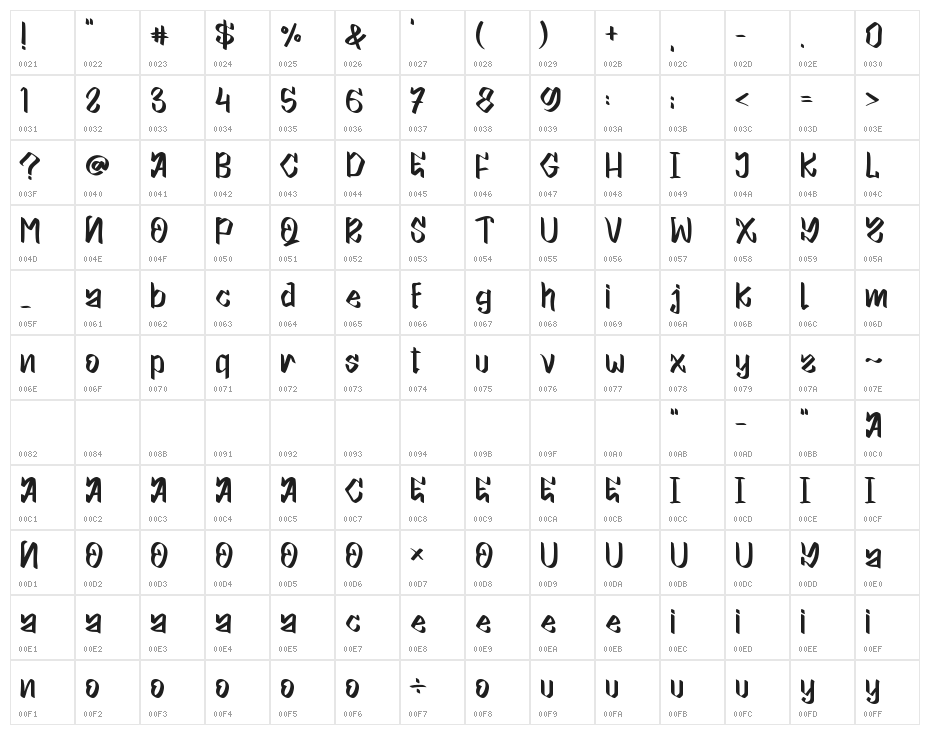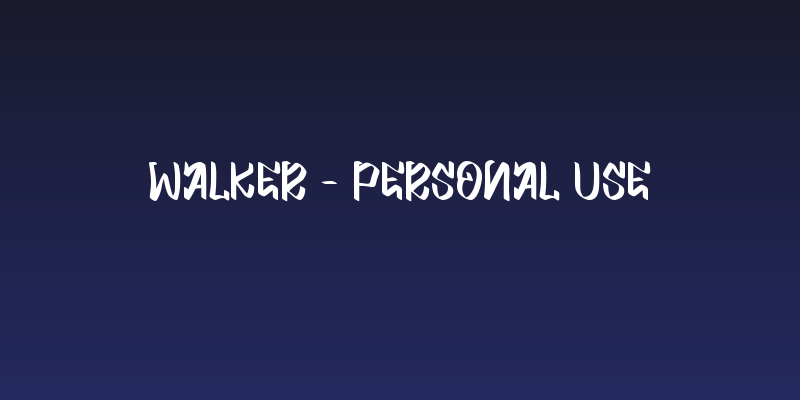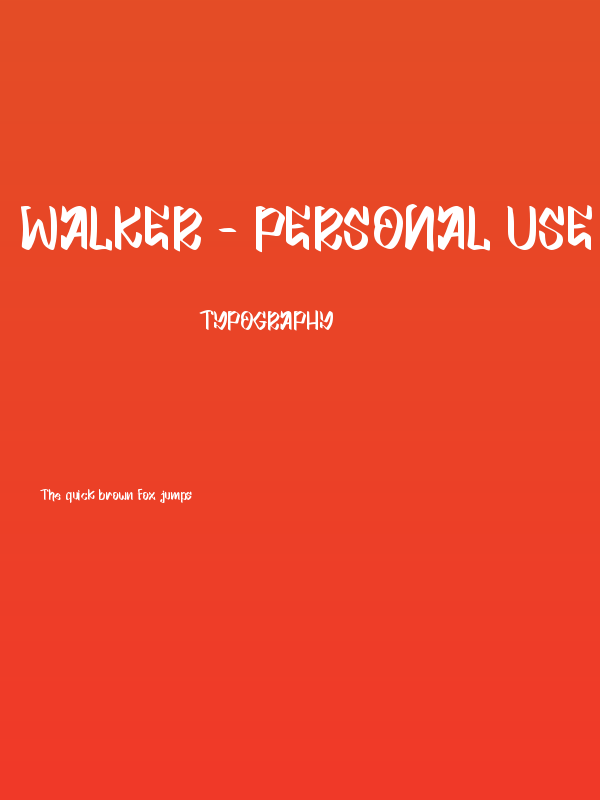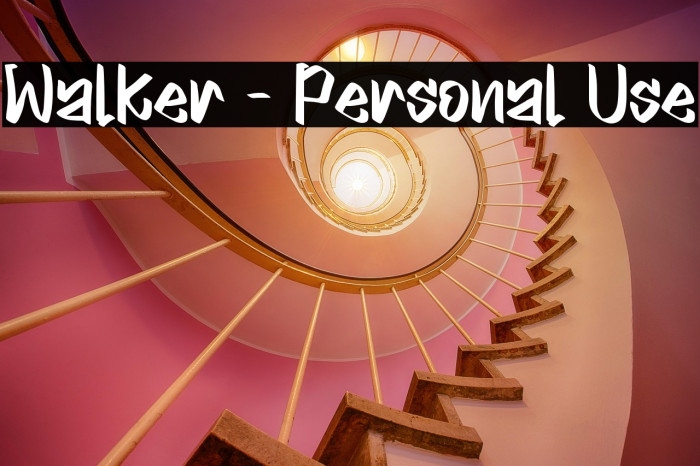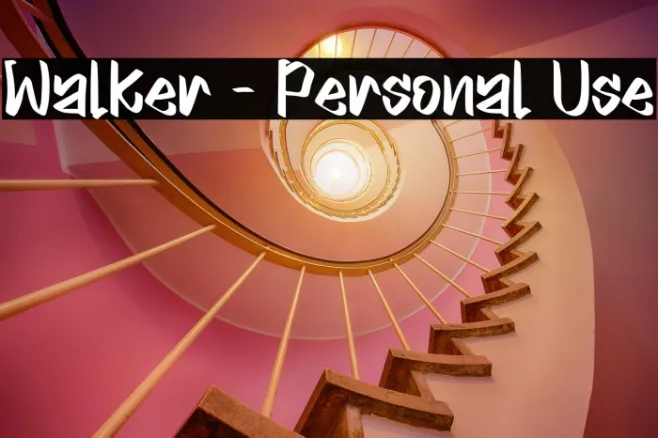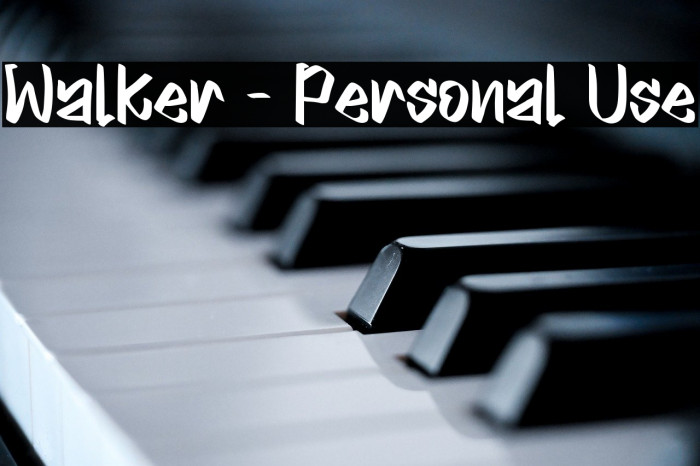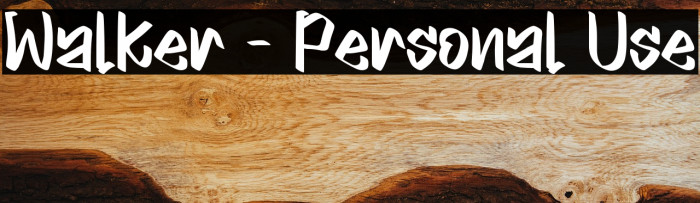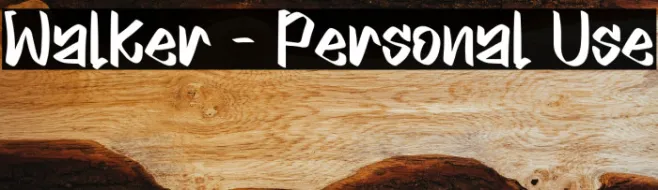
Walker - Personal Use Font
Walker - Personal Use Description
This font exhibits a bold and dynamic style with a handwritten appearance. The characters are crafted with a brush-like texture, giving them a lively and energetic feel. The uppercase and lowercase letters maintain a consistent flow, while the numbers and special characters complement the overall design. The strokes are thick and expressive, adding to the font's distinctive personality. This font is ideal for projects that require a personal touch or a creative flair.
| Proposed Projects | Ideal for posters, branding, invitations, and creative projects that require a personal and artistic touch. |